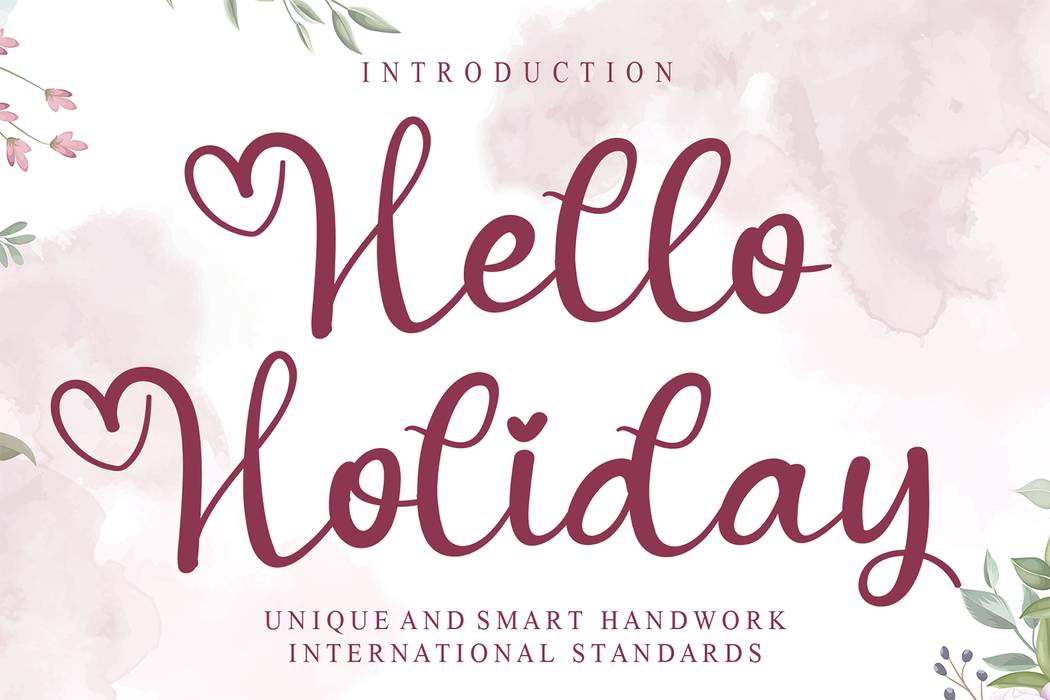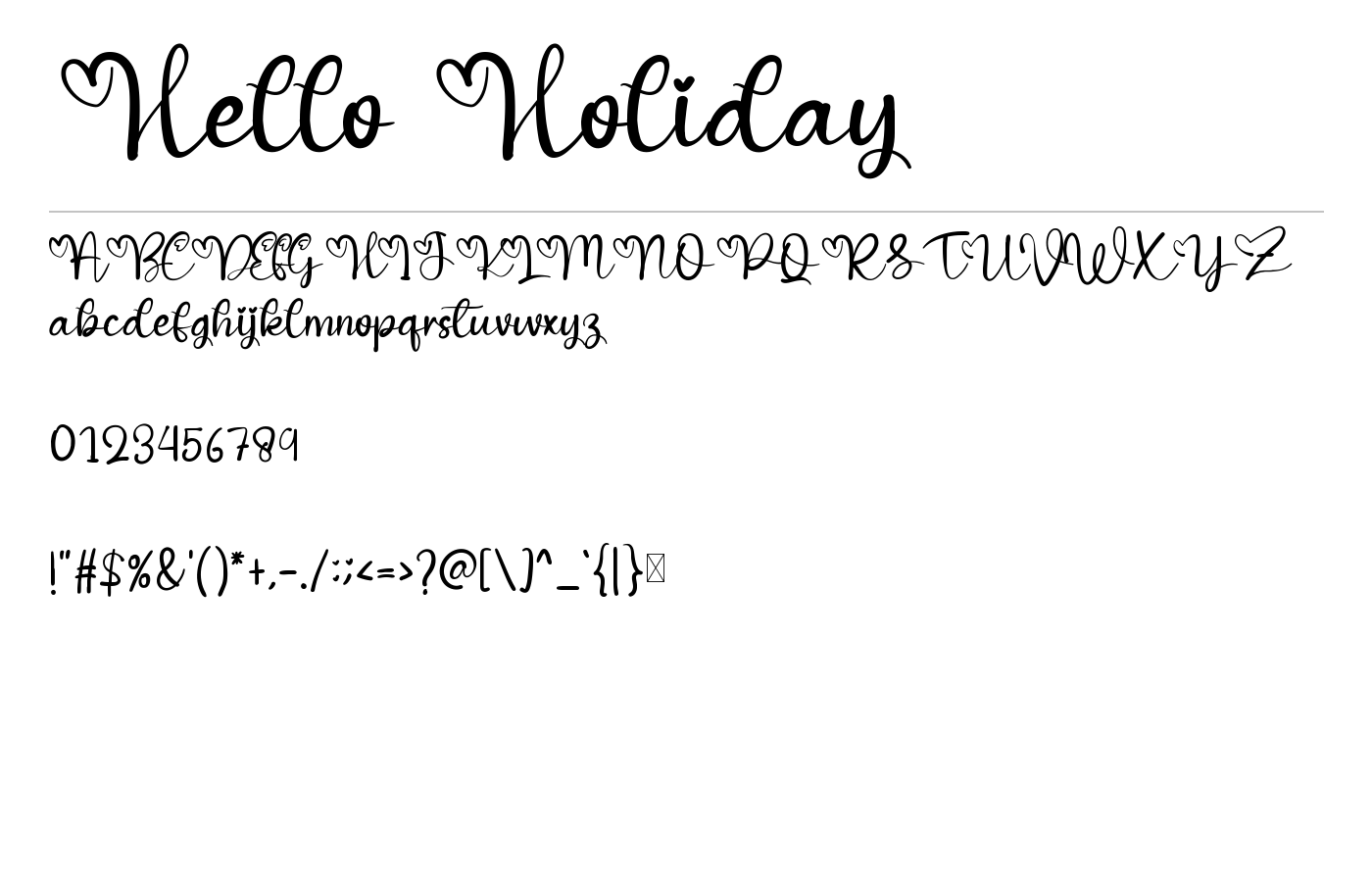
Hello Holiday Font is a playful and charming script font featuring delicate, flowing strokes with unique heart-shaped embellishments on capital letters. Its light weight and casual, hand-drawn style make it perfect for cheerful and romantic designs such as greeting cards, invitations, and festive branding. This font adds a warm, whimsical feel that works especially well for holiday themes and personal, friendly communication.
Hello Holiday Font
About Hello Holiday Font